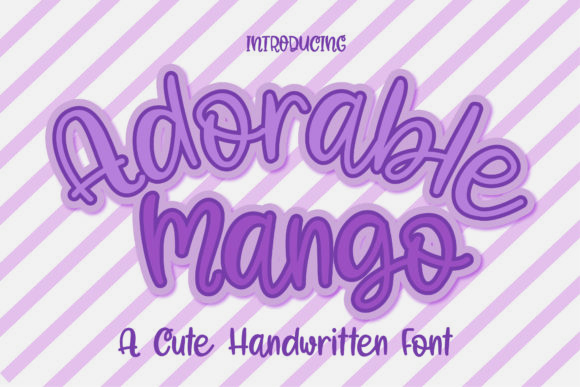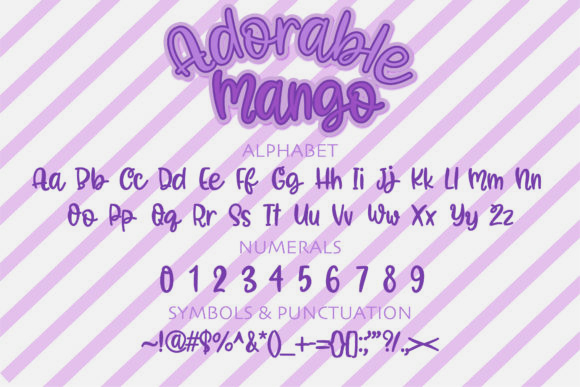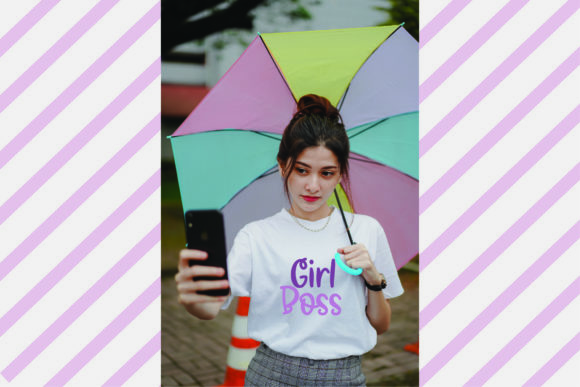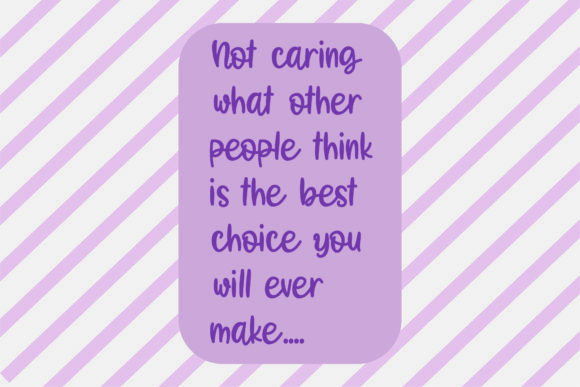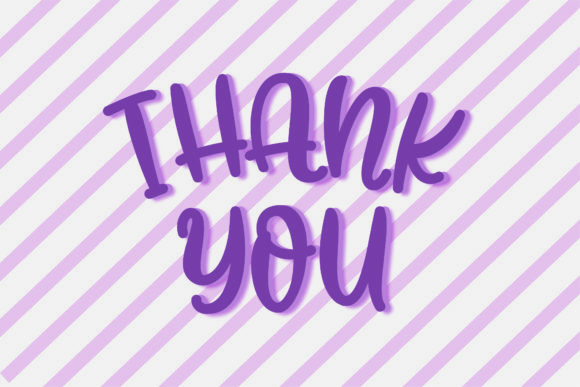
About Adorable Mango Font
Adorable Mango is a whimsical script font with a relaxed theme, featuring a lovely style. No matter the topic, this font will be an incredible asset to your fonts’ library, as it has the potential to elevate any creation.